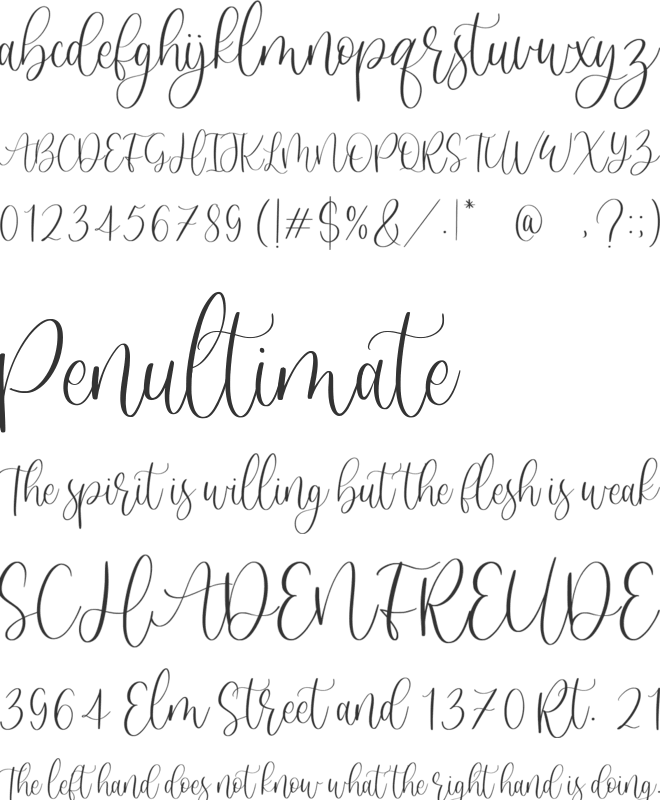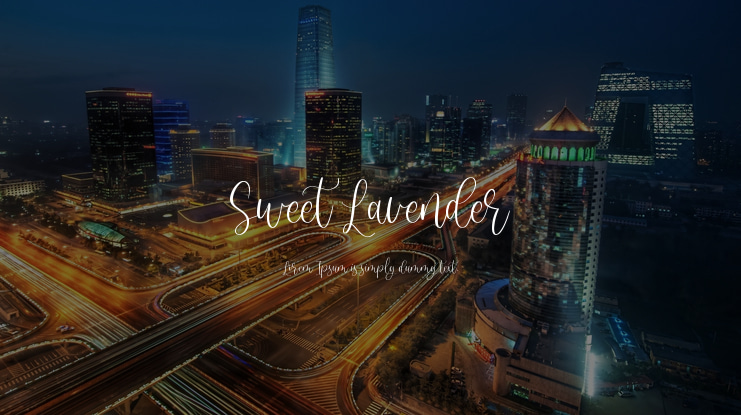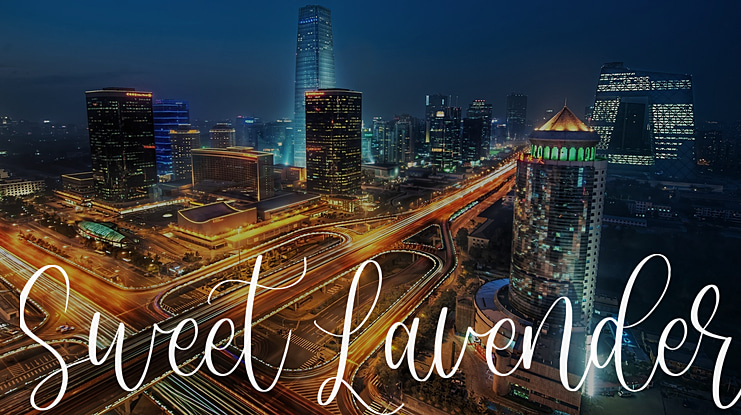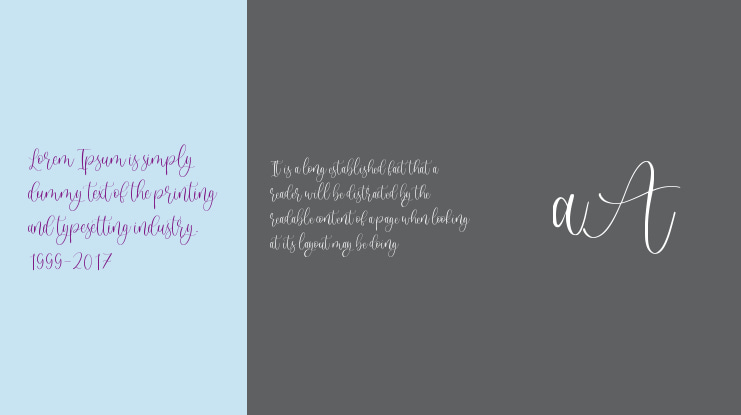
Sweet Lavender Font
Proudly Present, Sweet Lavender Font.
Sweet Lavender is a Modern Handwritten Font.
Sweet Lavender is perfect for product packaging, branding project, megazine, social media, wedding, or just used to express words above the background.